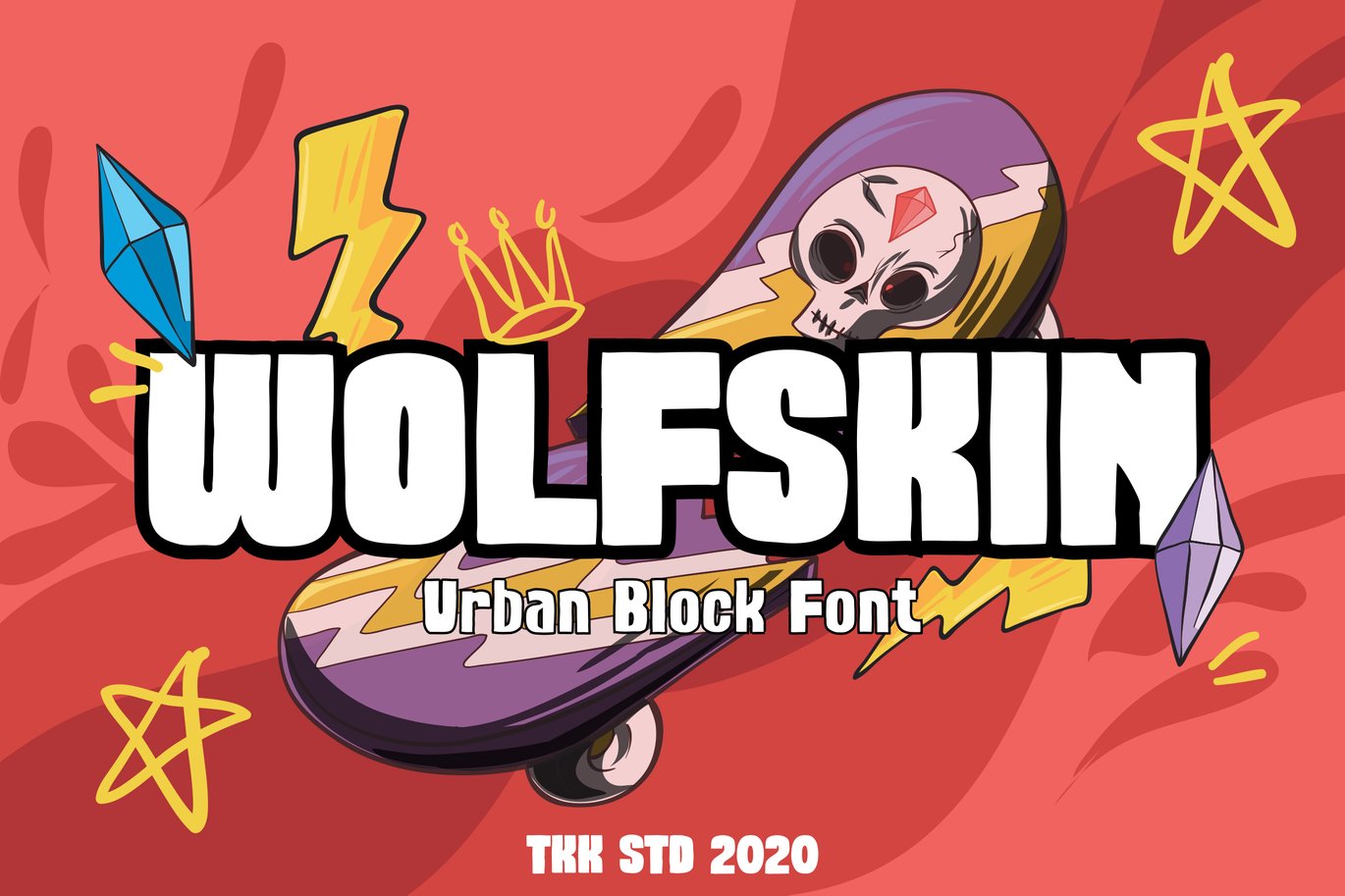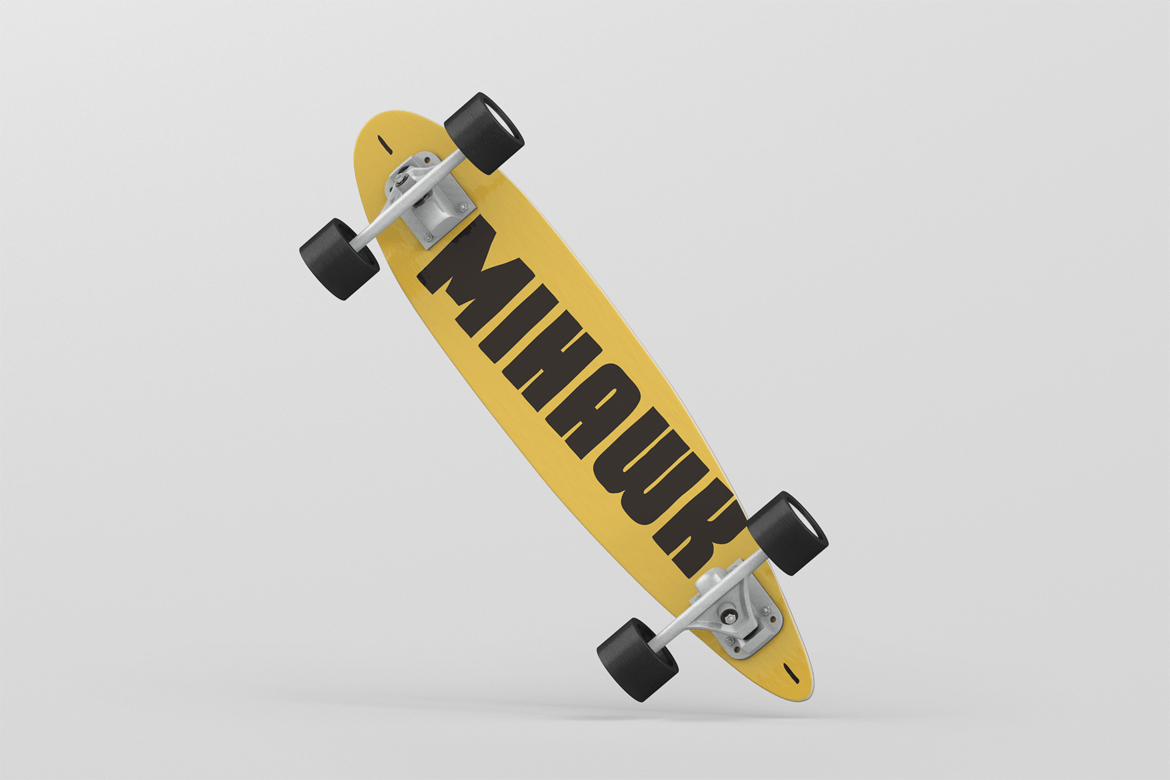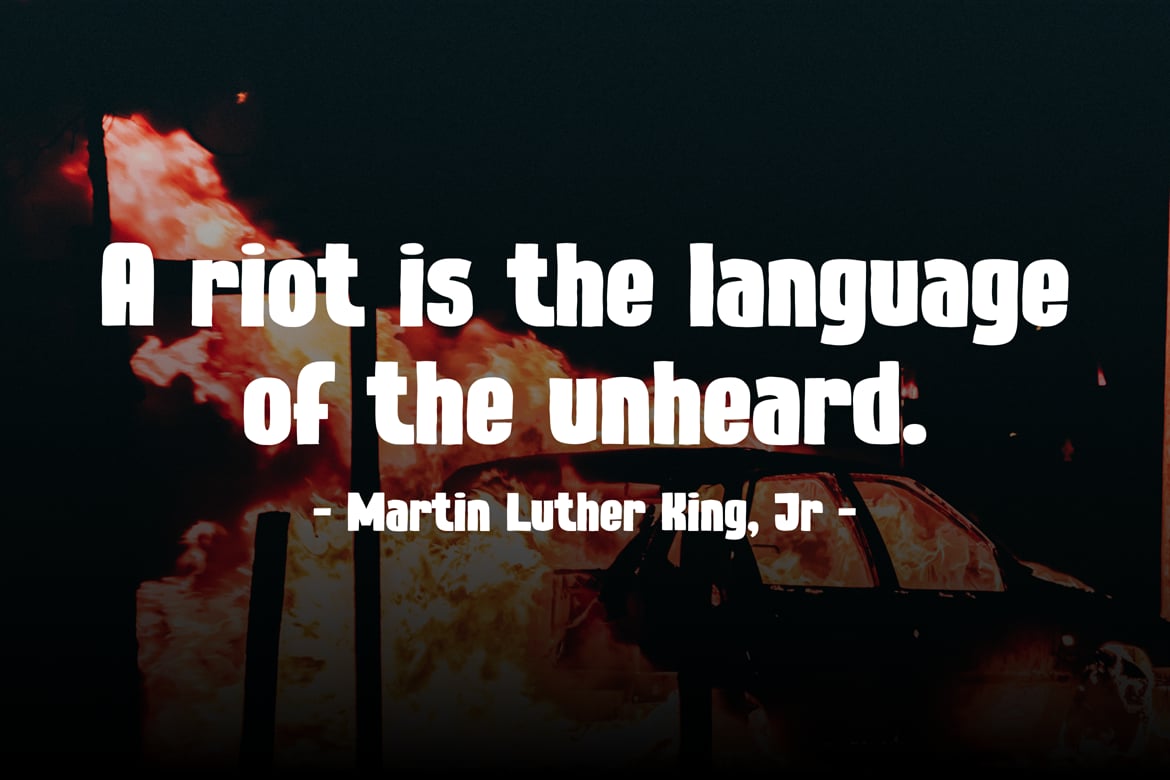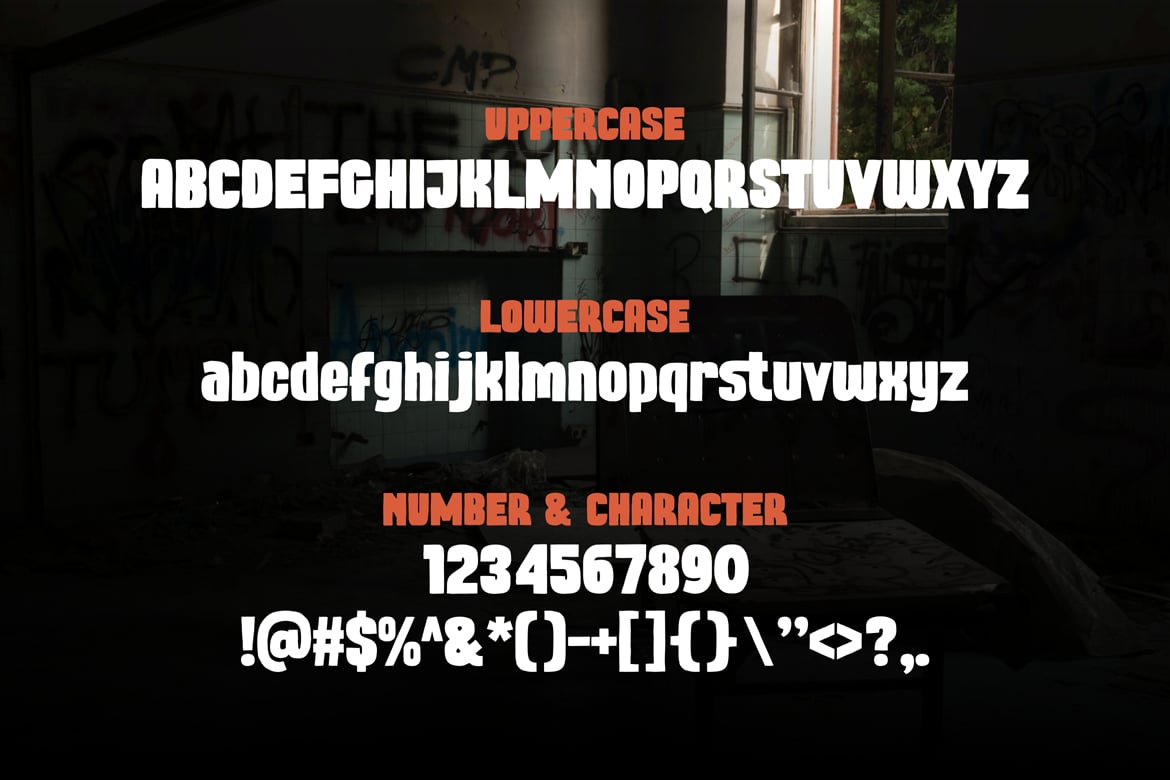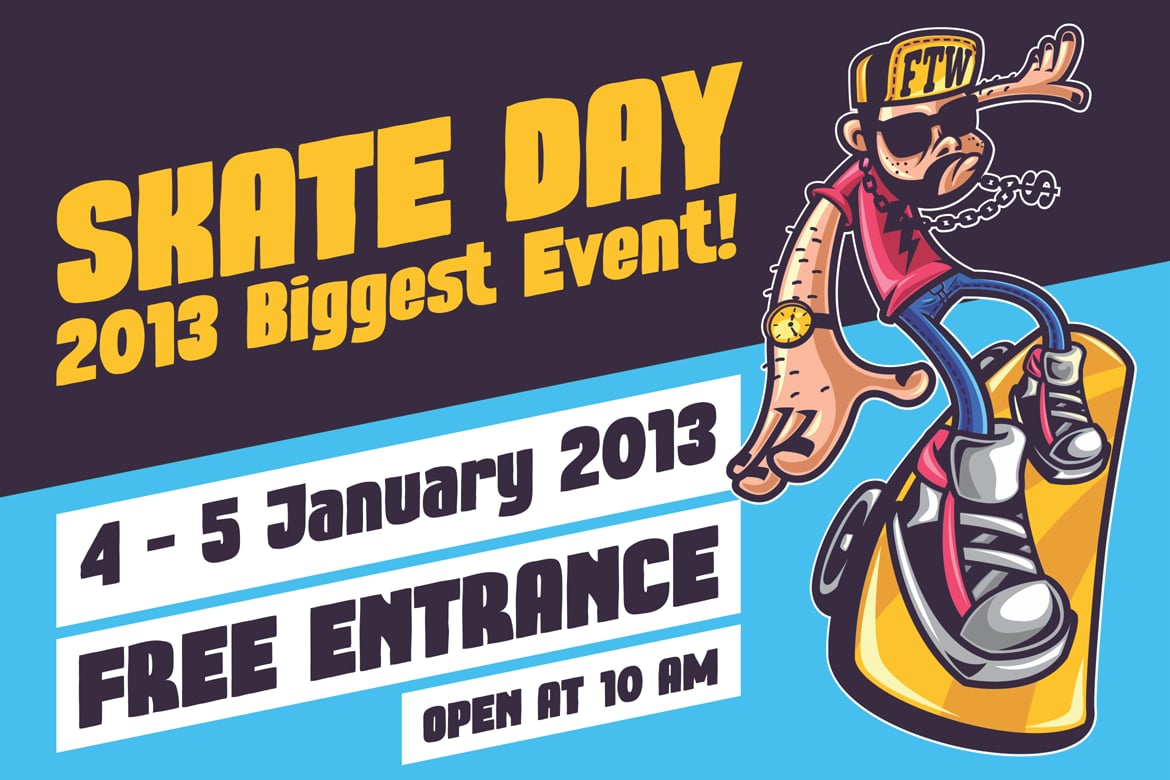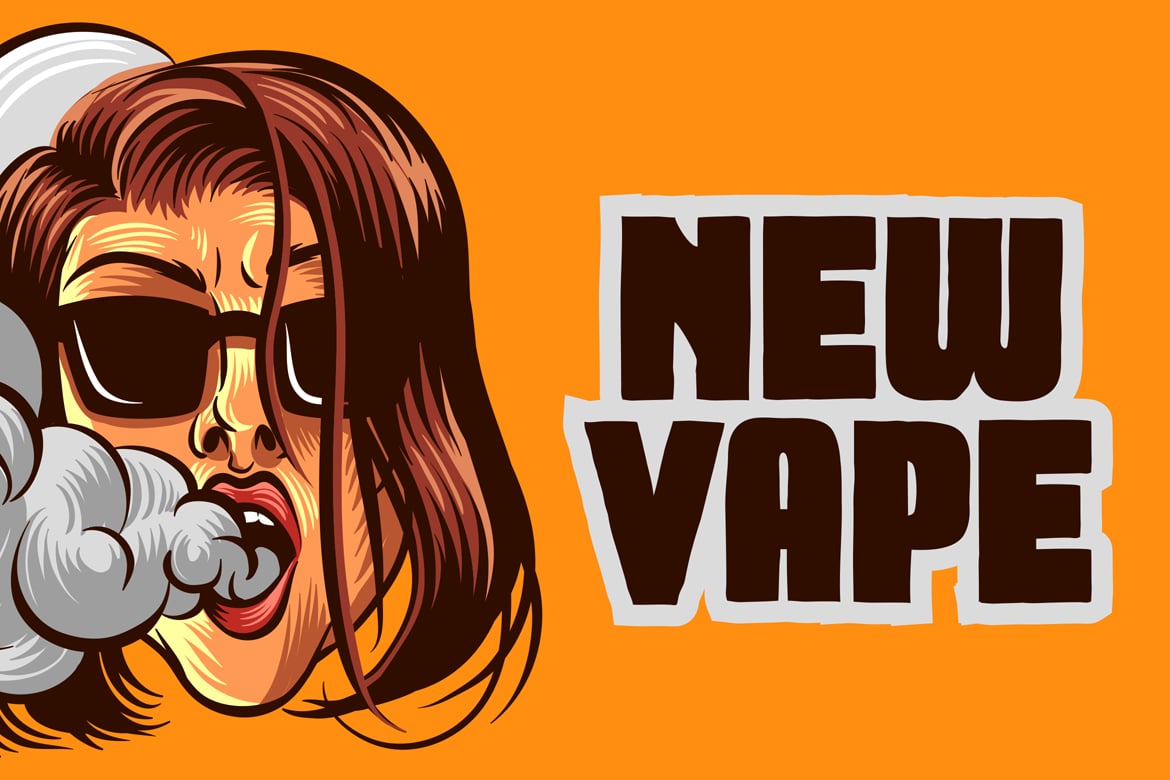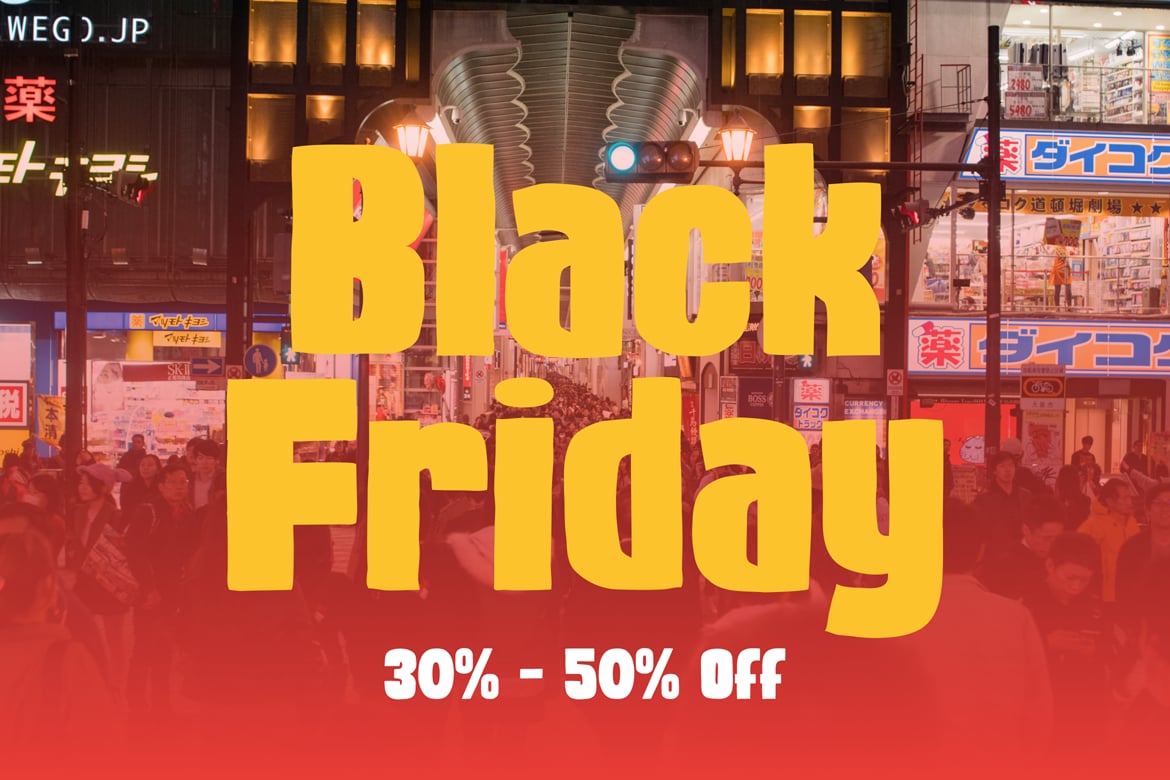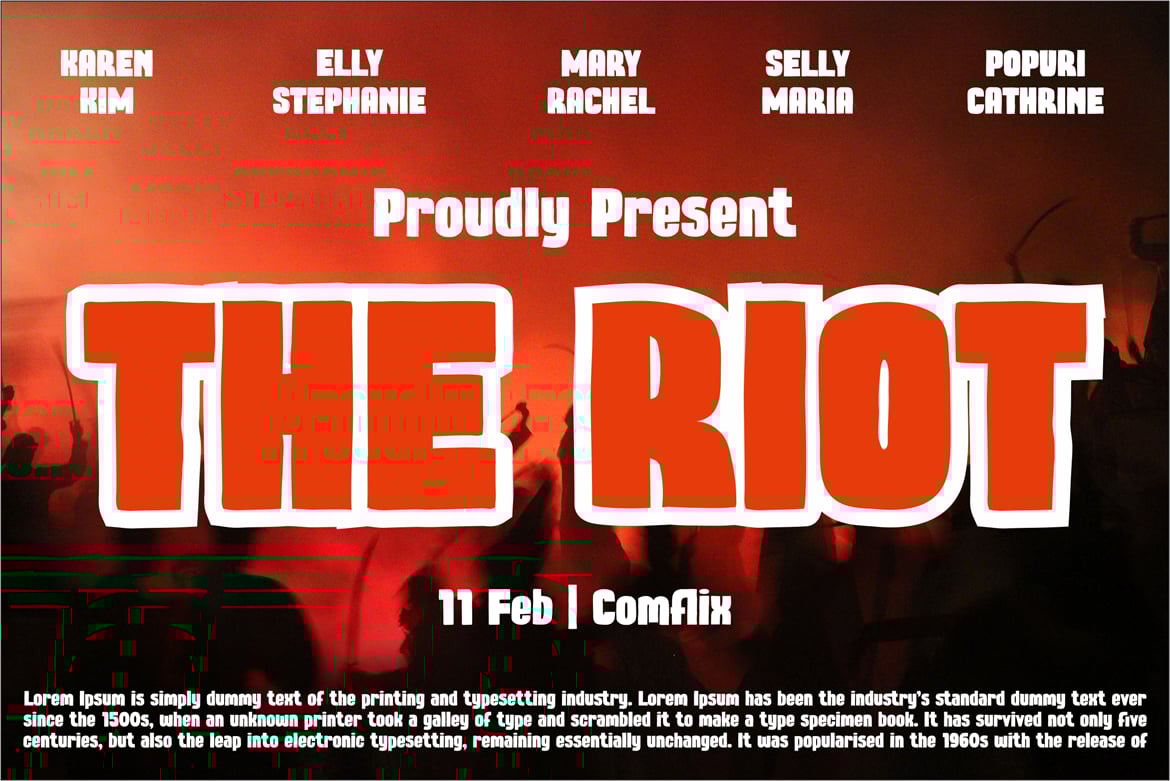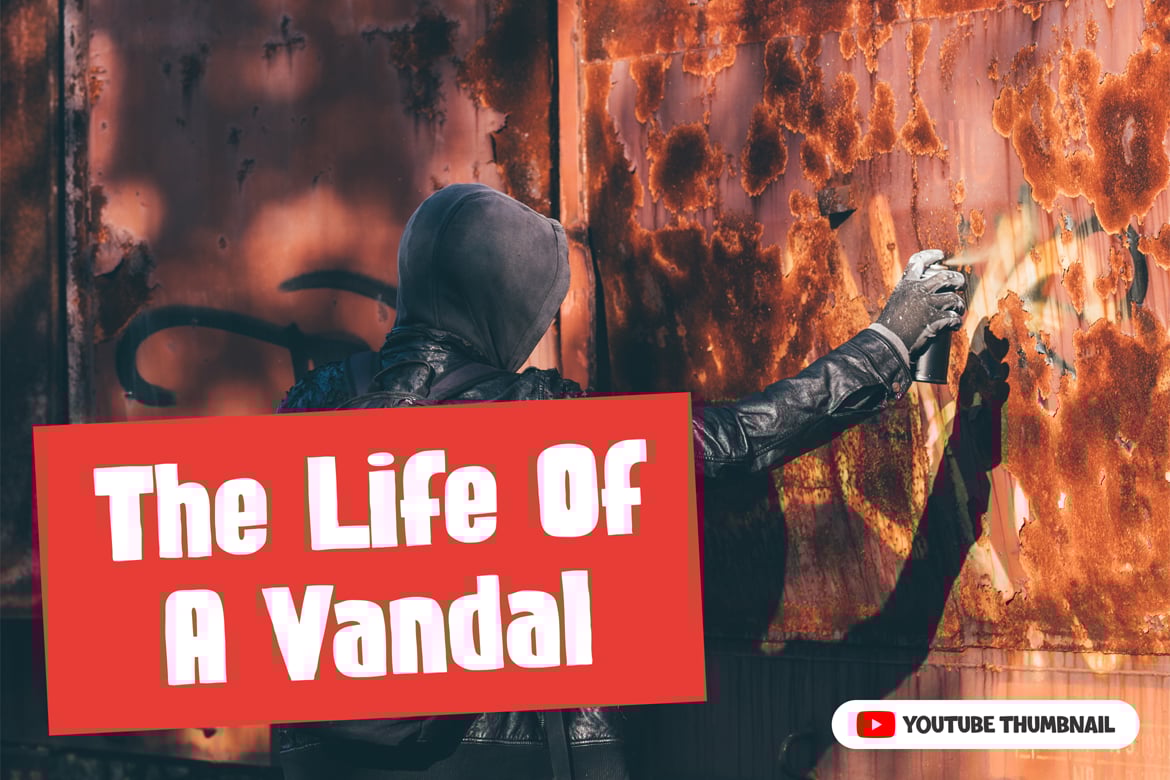
Wolfskin – Urban Block font
Wolfskin bring the urban life, street vibe, rebelious attitude, and edginess in a formal way. There’s a slight hint of chaos in the wavy lines that form the letter.
Suit perfectly for Online Games, poster, movie title, fast food menu, magazine, youtube covers, youtube thumbnails, social media page covers and so on…